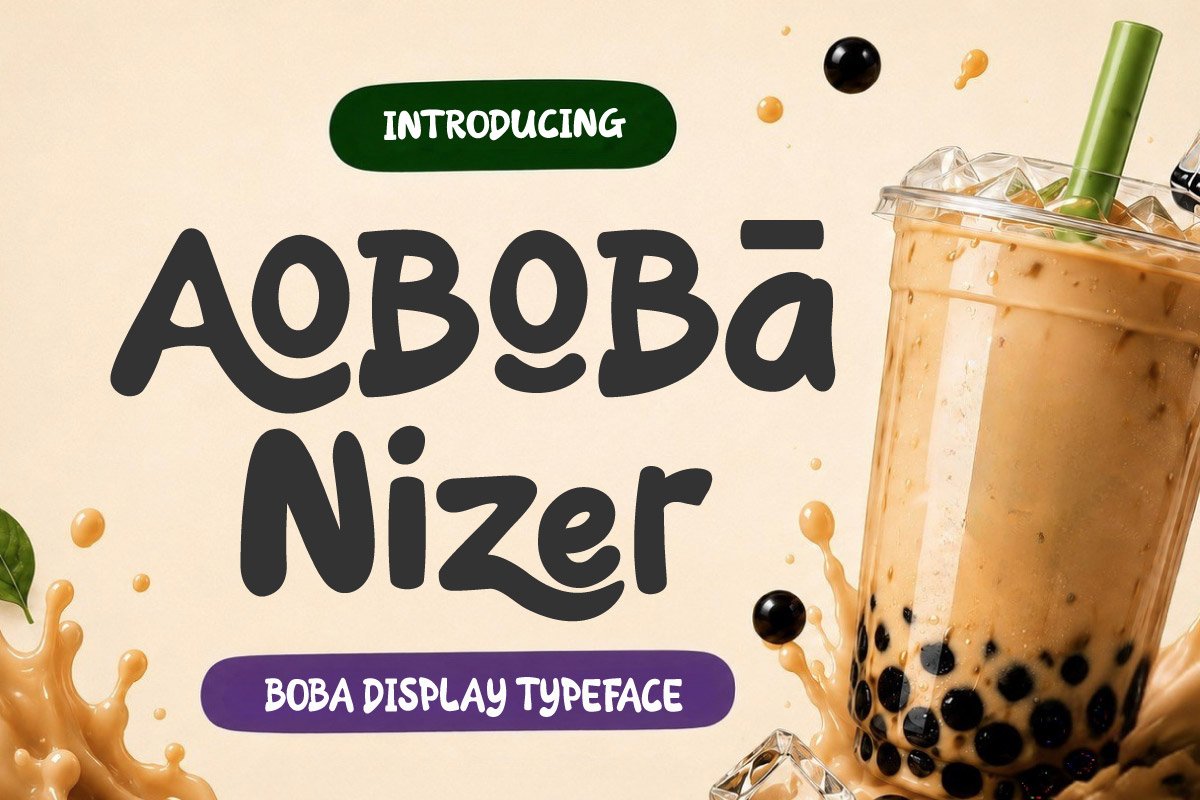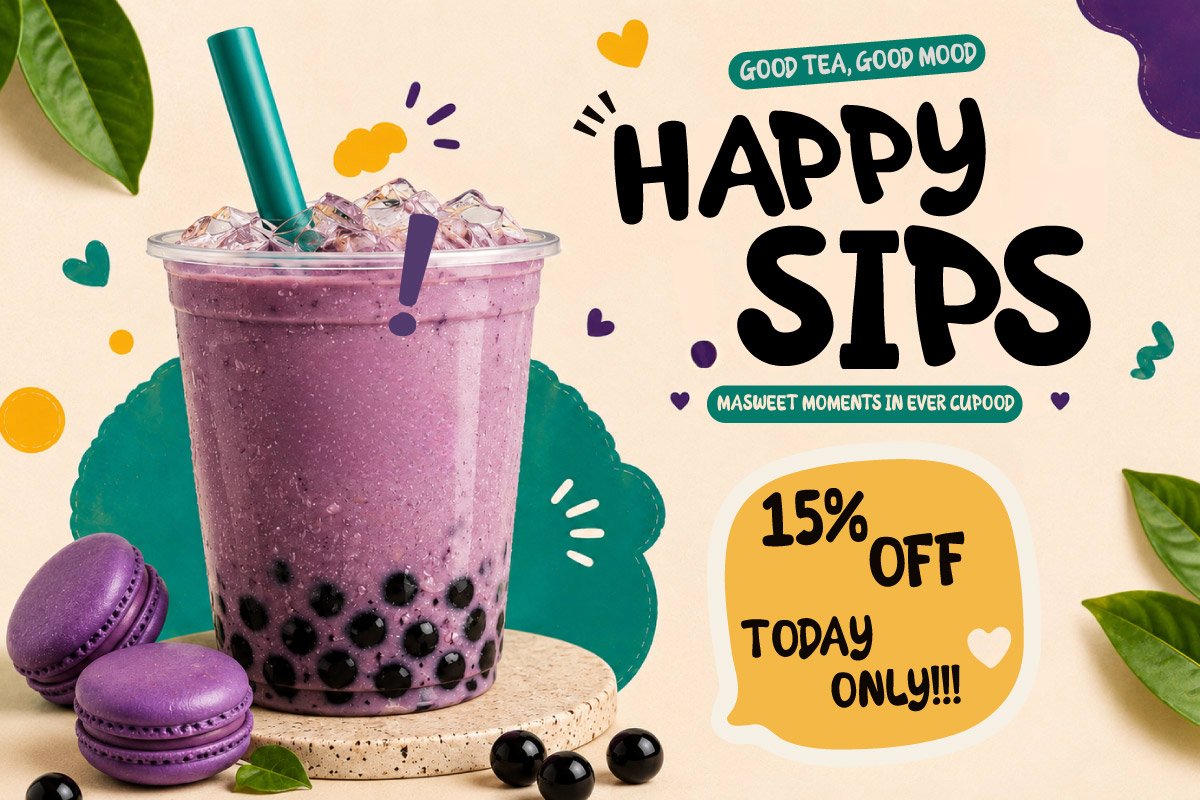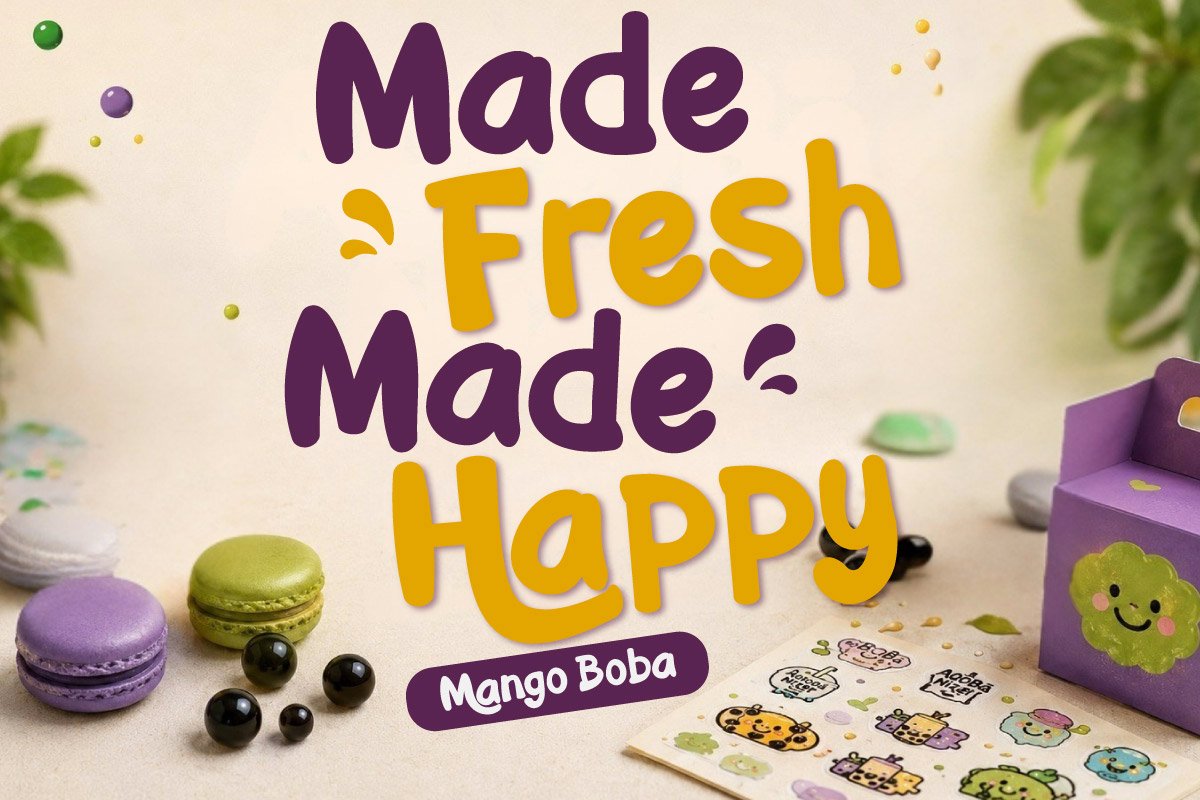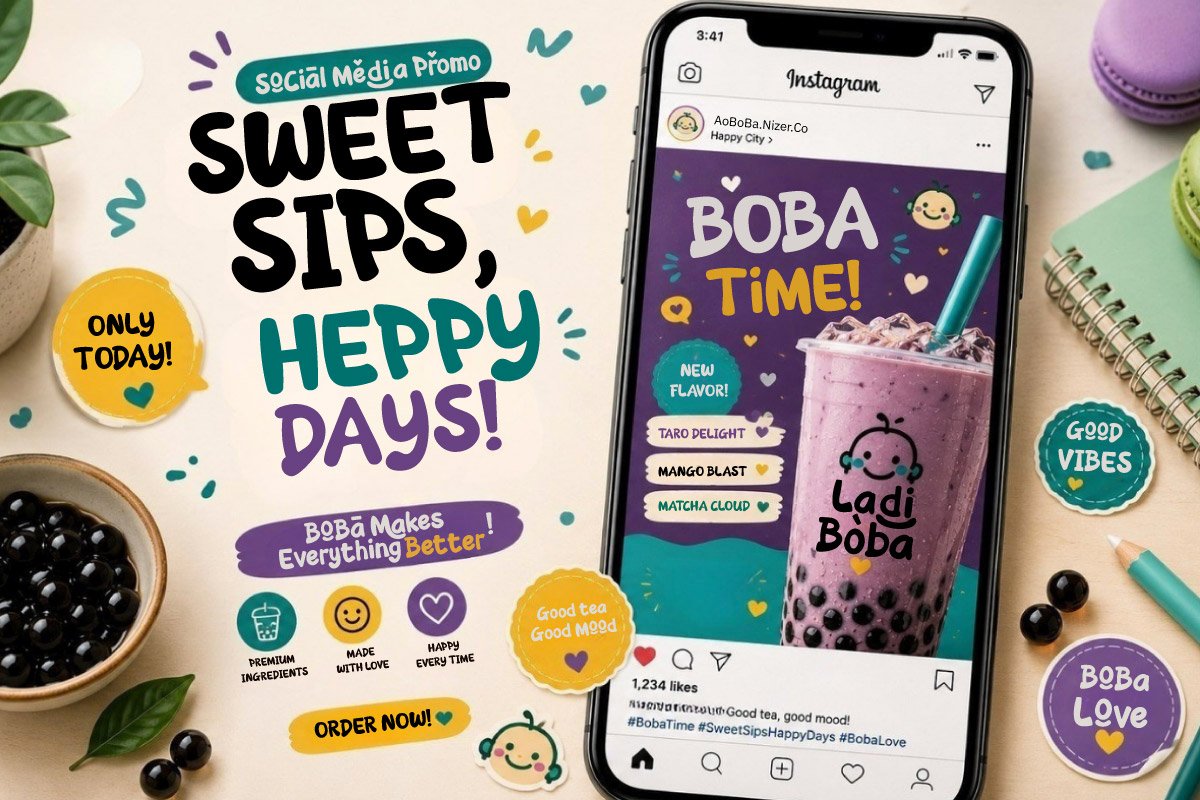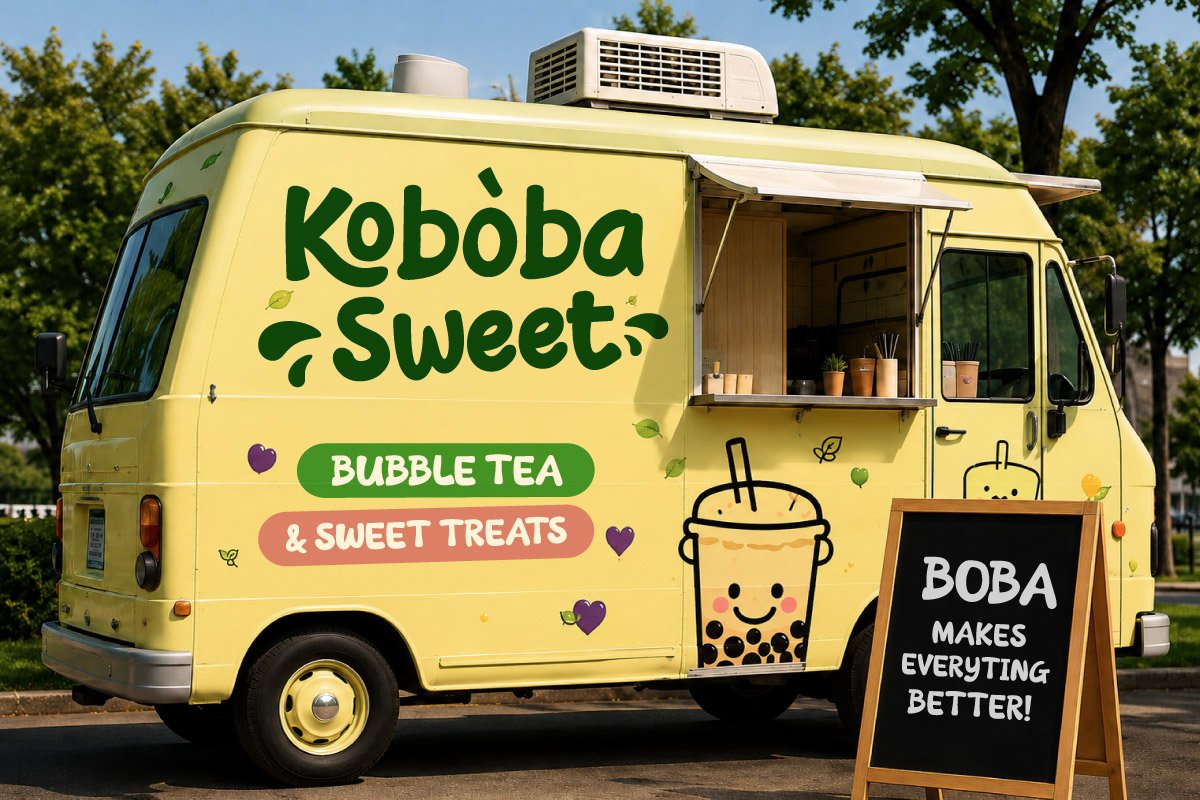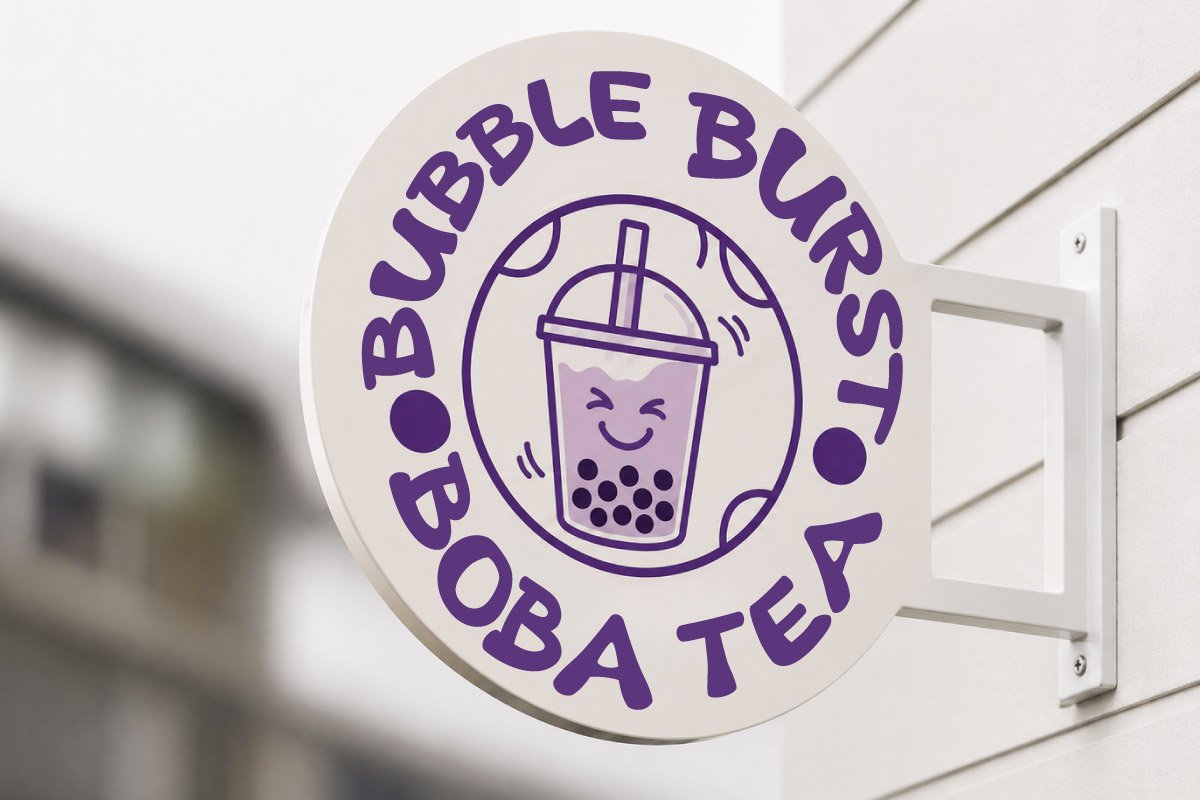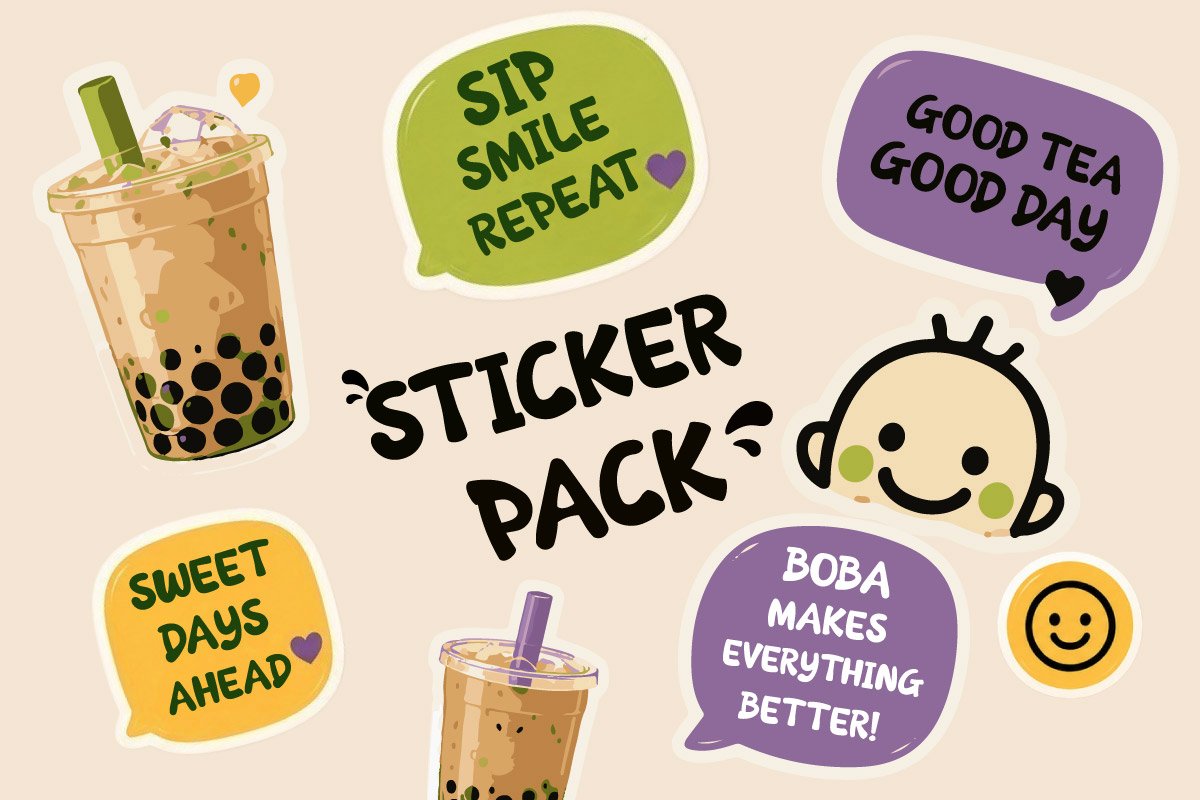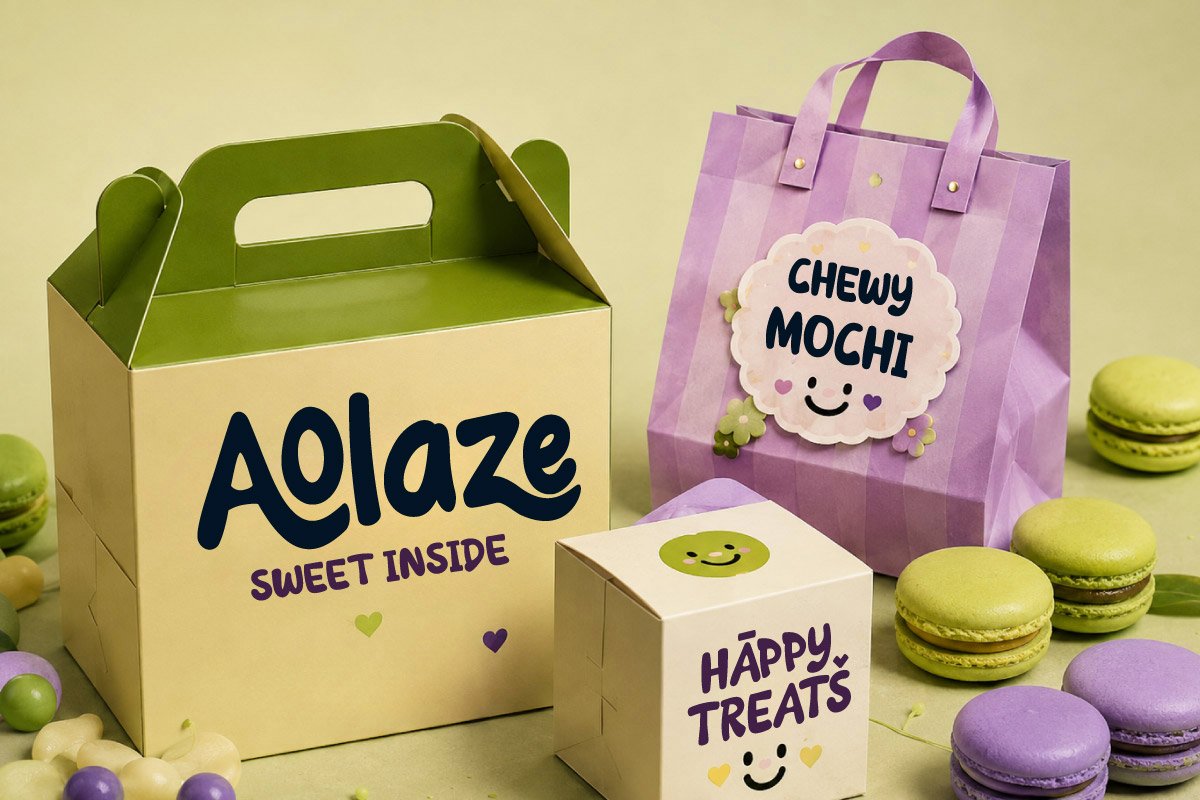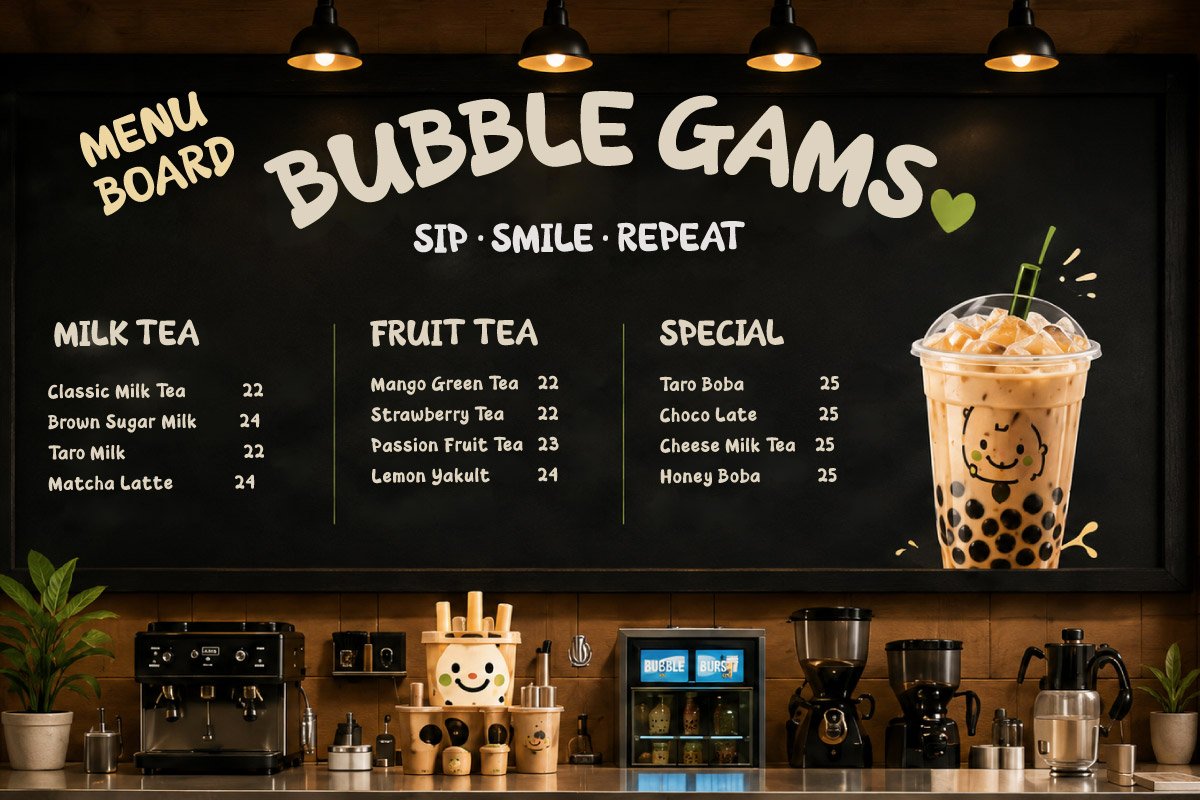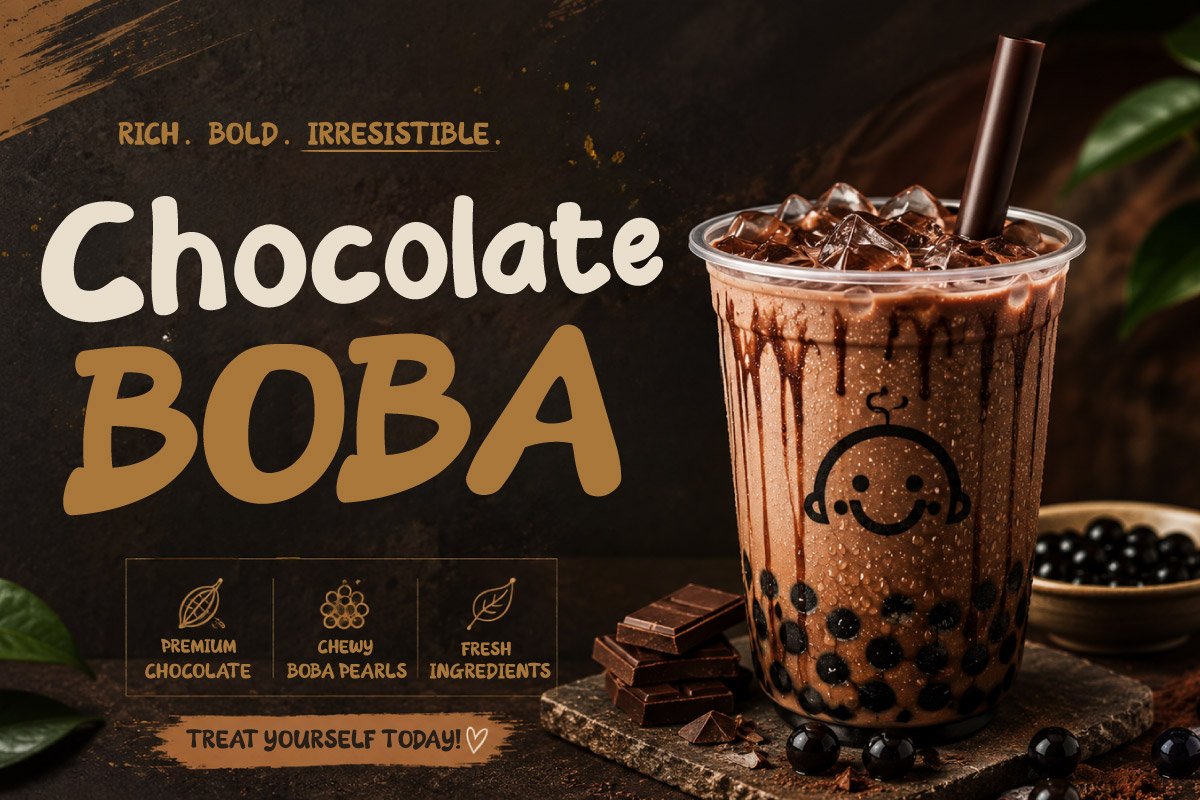
Aoboba Nizer – Boba Display Font
Aoboba Nizer is a cute and playful Boba Display Font crafted to bring a fresh, cheerful, and delicious personality to your creative projects. Inspired by bubble tea culture, sweet desserts, and colorful café branding, this font features soft rounded shapes and a friendly handwritten style that instantly catches attention.